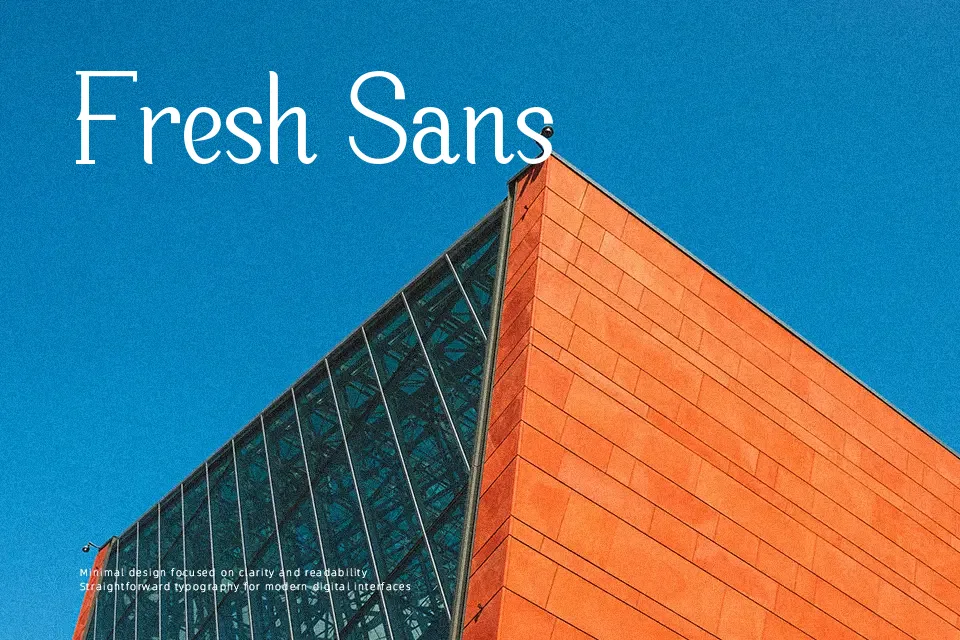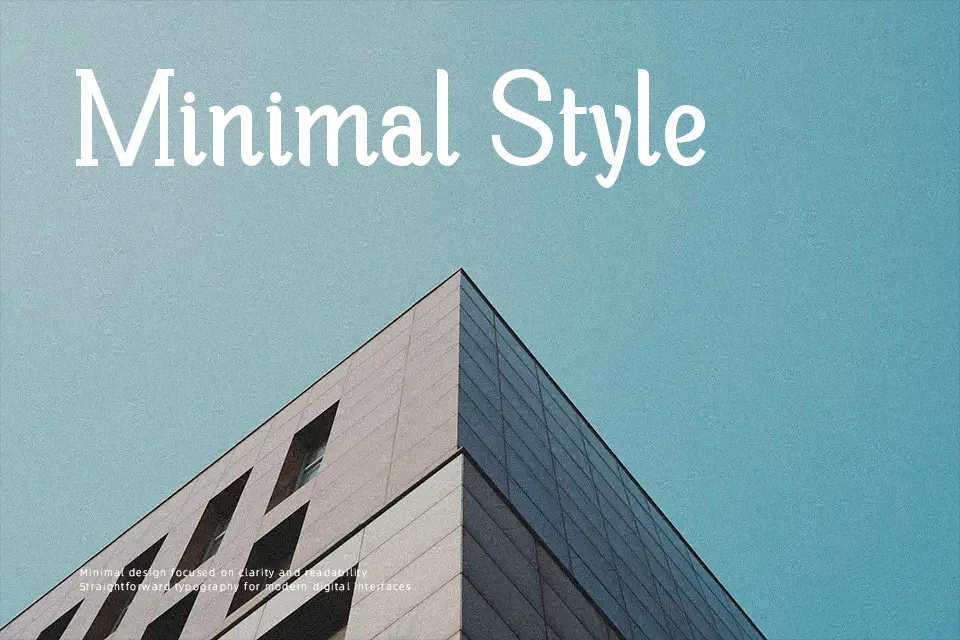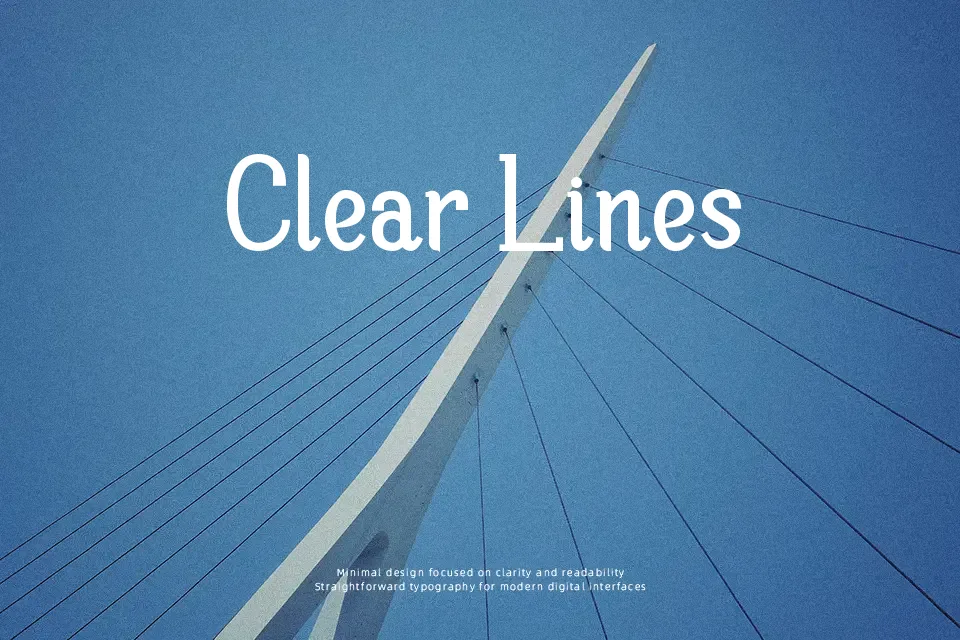
Blue Denim Font
Designed by Edric Studio
Blue Denim is a classic display serif characterized by its refined strokes, balanced proportions, and meticulously crafted kerning. It delivers a formal, vintage aesthetic that captures a timeless and elegant mood. Compared to heavier slab serifs, this typeface maintains a delicate balance that feels significantly more graceful. It excels in practical design scenarios like high-end fashion magazines, boutique café branding, and sophisticated wedding invitations. The letterforms perform beautifully when establishing strong, authoritative brand identities that require a touch of traditional charm. However, due to its detailed structure and vintage nuances, Blue Denim struggles with legibility in dense body paragraphs and feels out of place in ultra-modern tech interfaces.
High-end fashion branding and apparel tags
Elegant wedding invitations and stationery
Sophisticated magazine headlines and editorial layouts
Vintage-inspired boutique logos
Dense body text and long reading materials
Minimalist tech startup interfaces
Ultra-modern futuristic poster designs
Perfect for branding, editorial, and fashion, with a classic and display style.